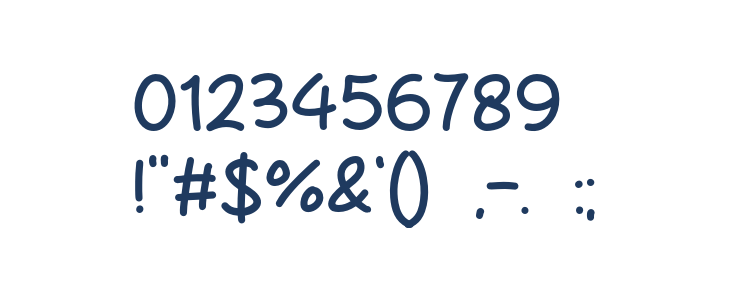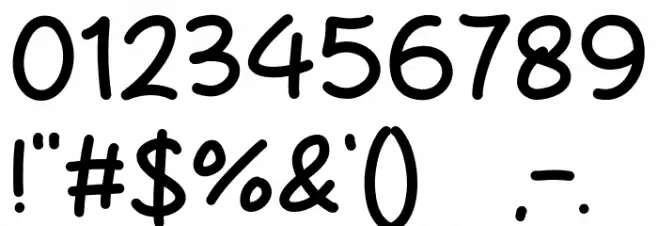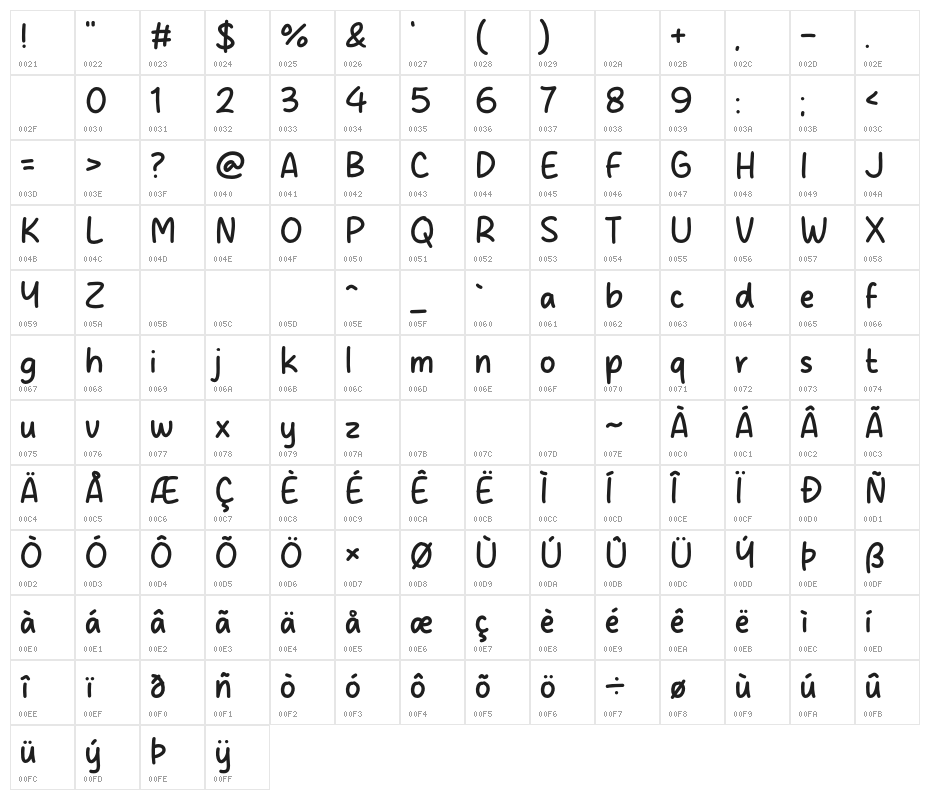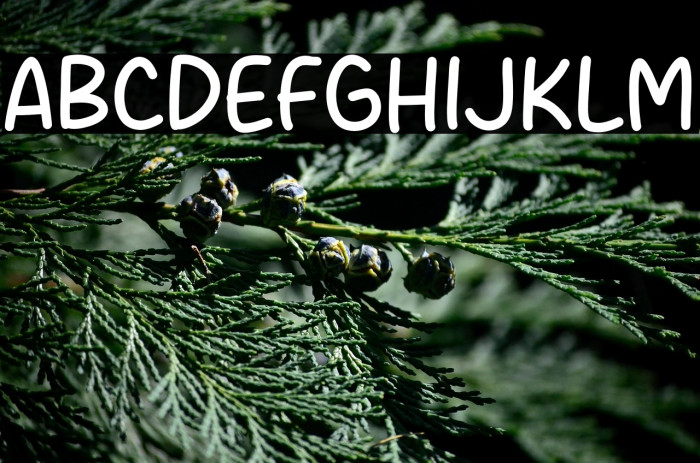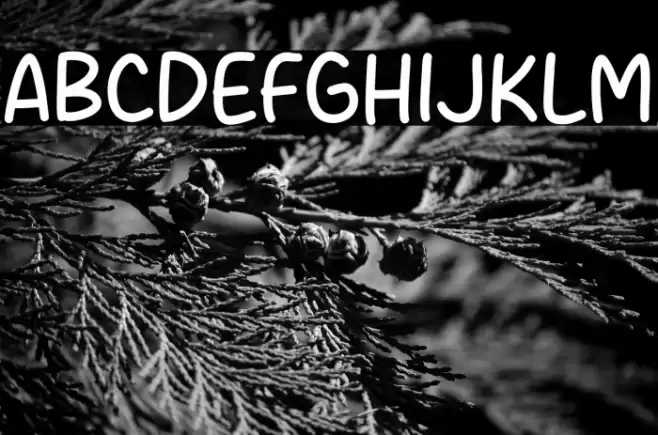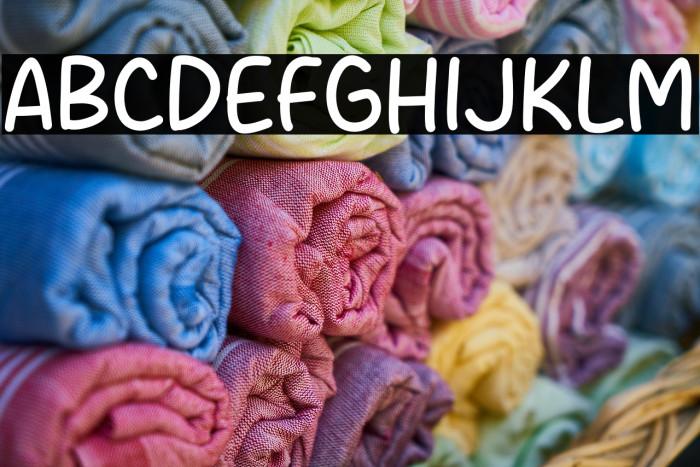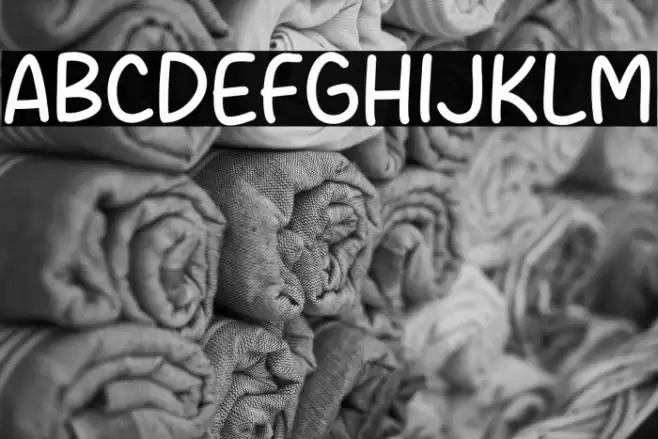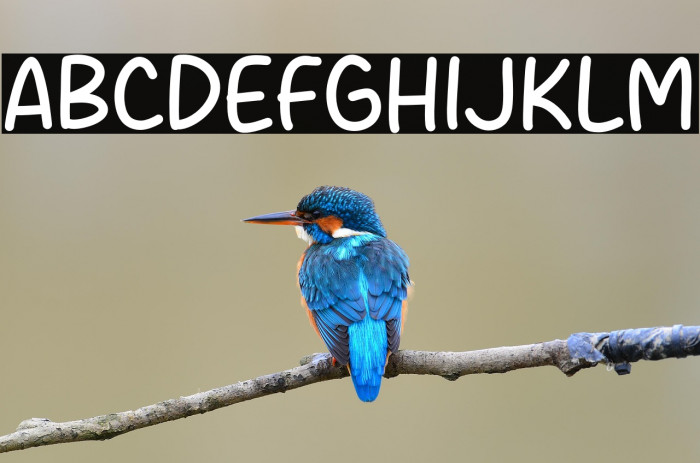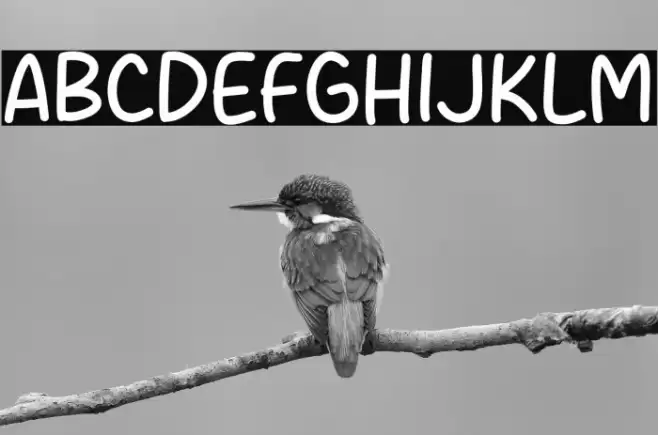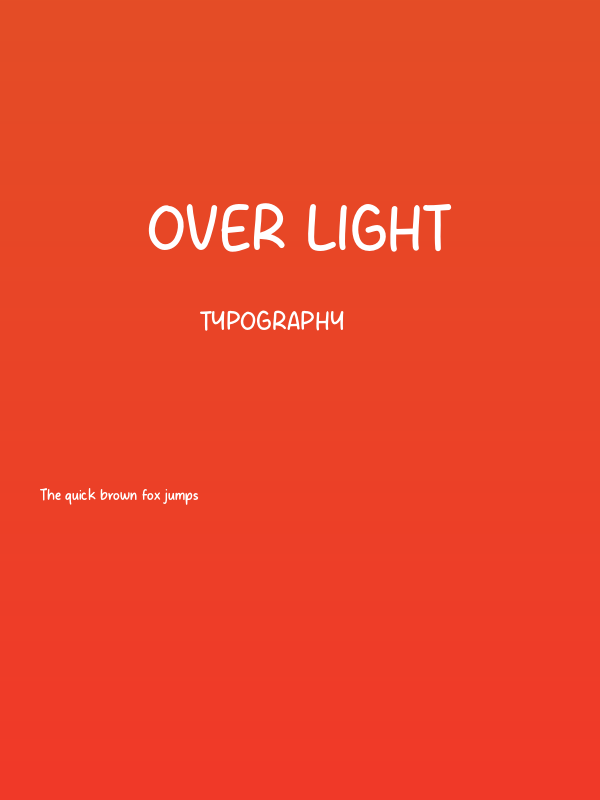
Over Light Font
Over Light Description
This playful and rounded font features a handwritten style with a casual and friendly appearance. The characters are bold and slightly irregular, giving them a lively and approachable feel. The uppercase and lowercase letters maintain a consistent style, with smooth curves and a uniform stroke width. The numerals and special characters are designed to match the overall aesthetic, ensuring a cohesive look across all text. This font is ideal for projects that require a personal touch or a fun, informal vibe.
| Proposed Projects | Ideal for children's books, greeting cards, casual branding, and social media graphics. |